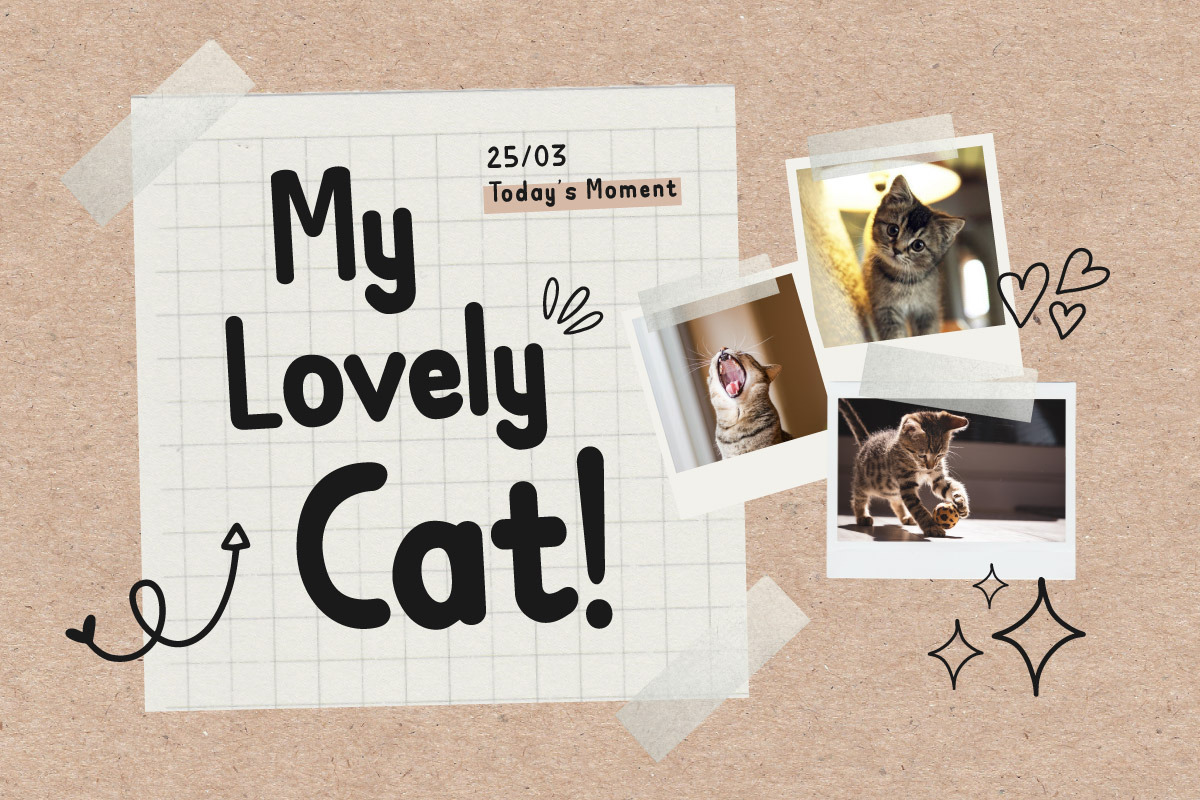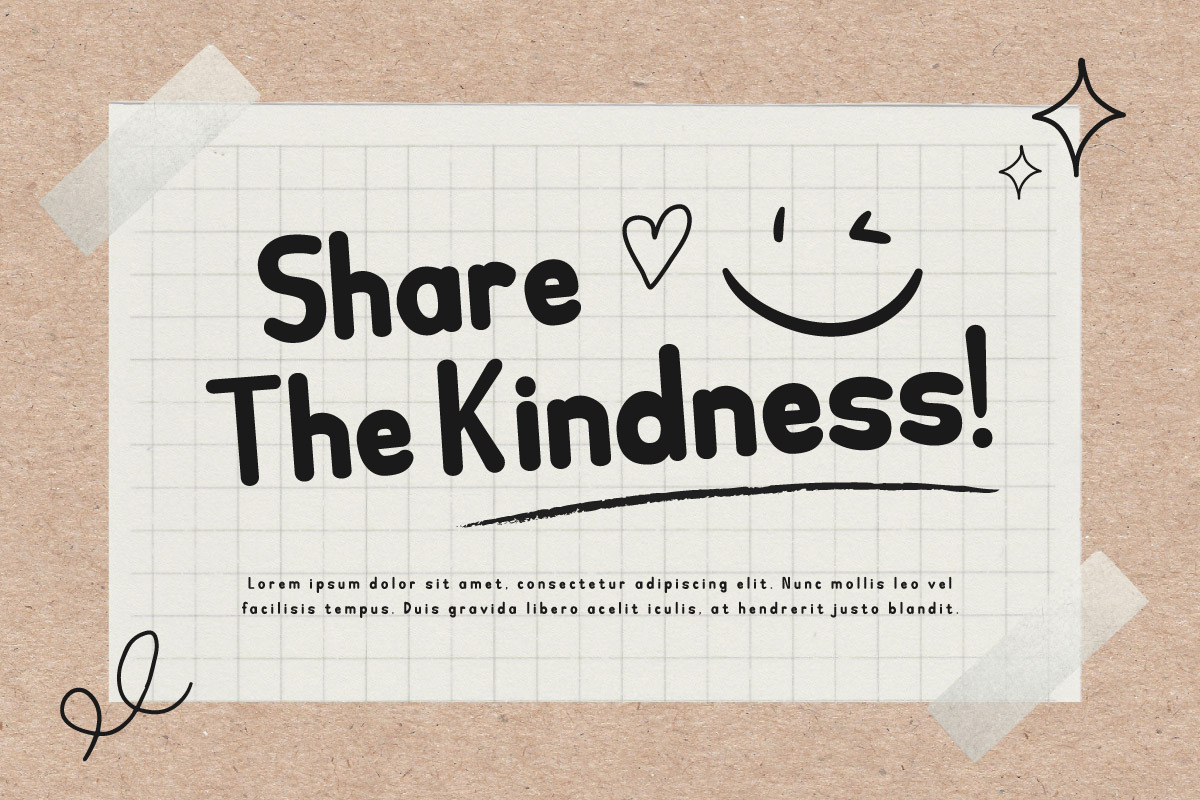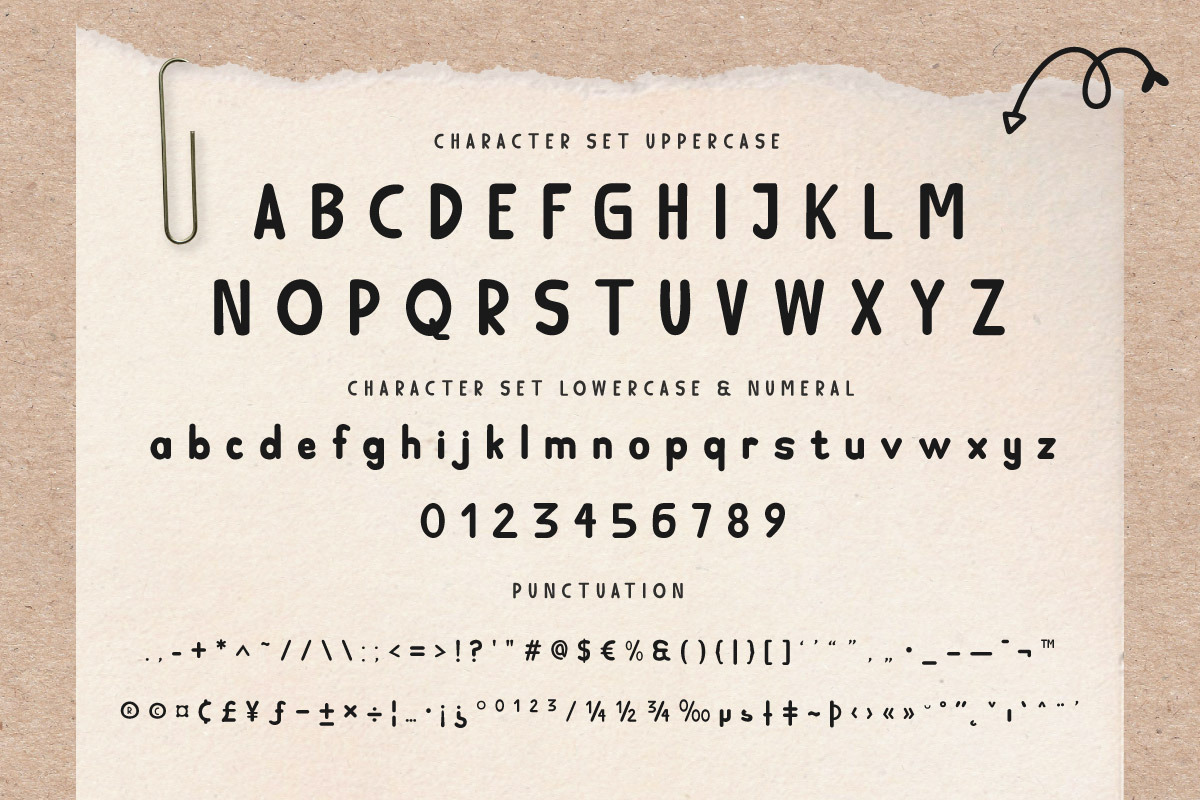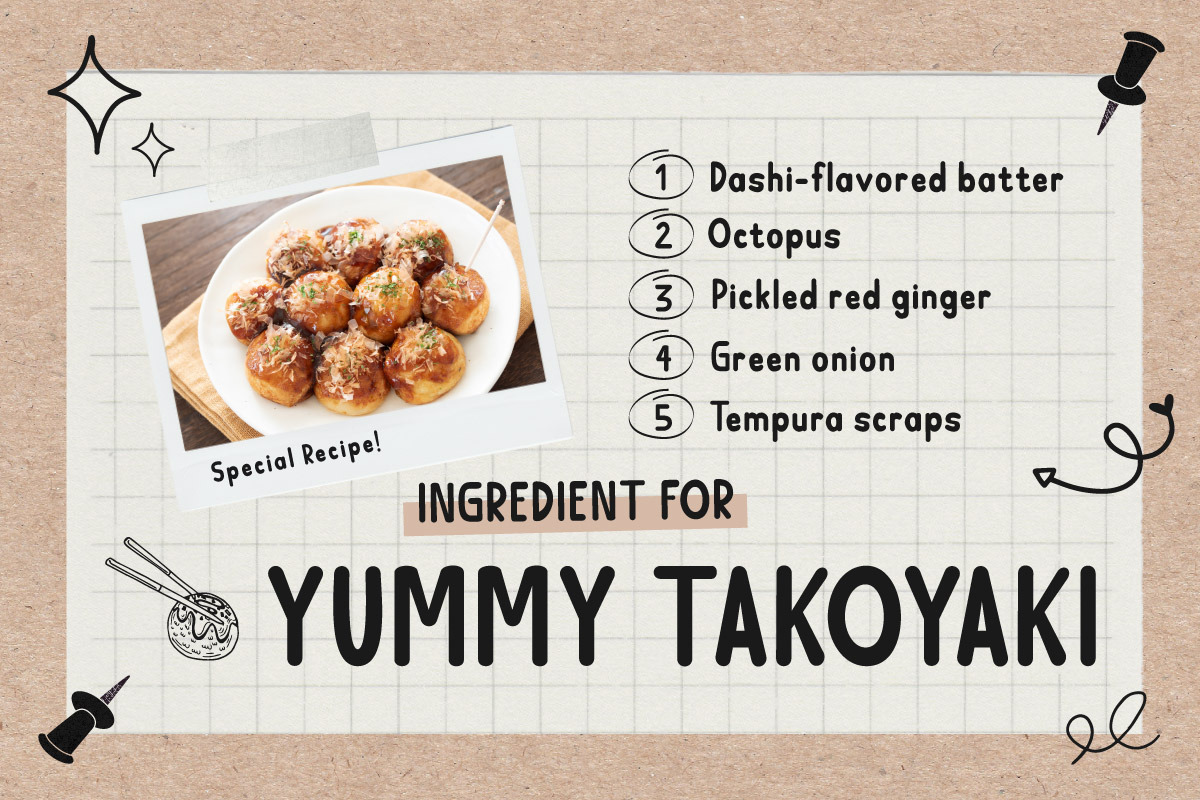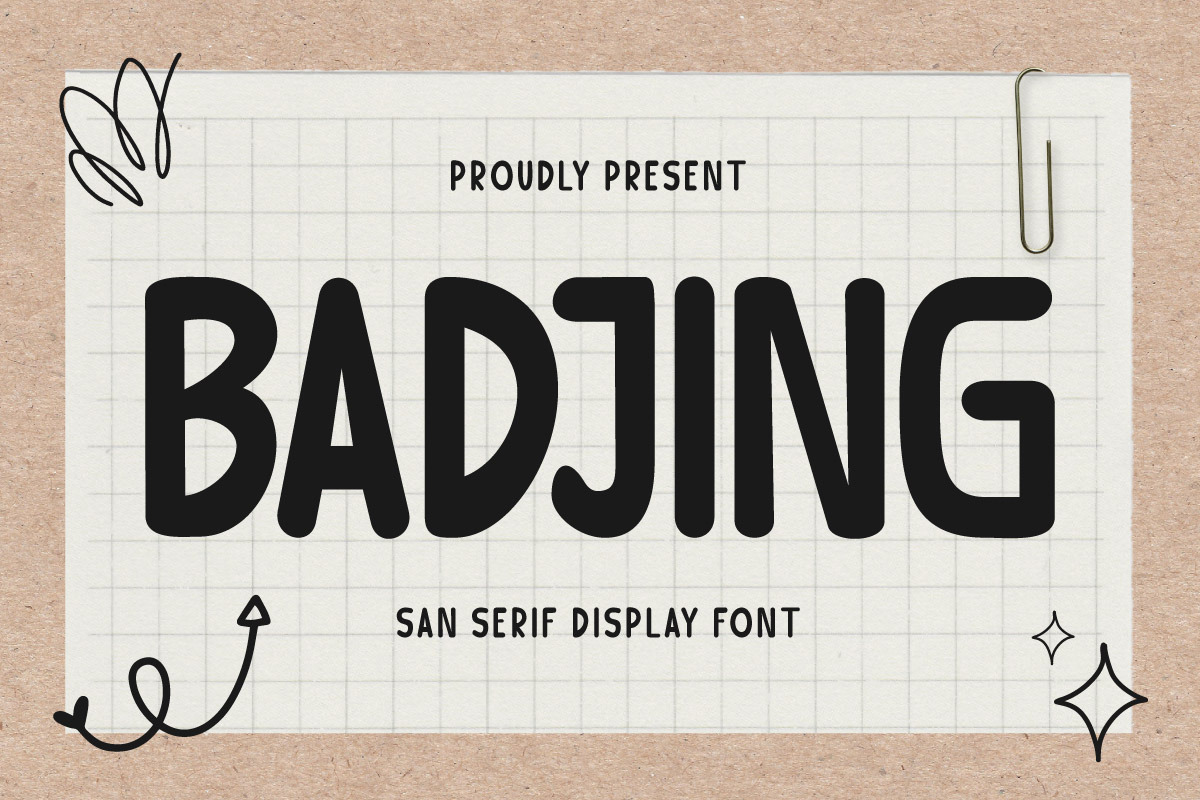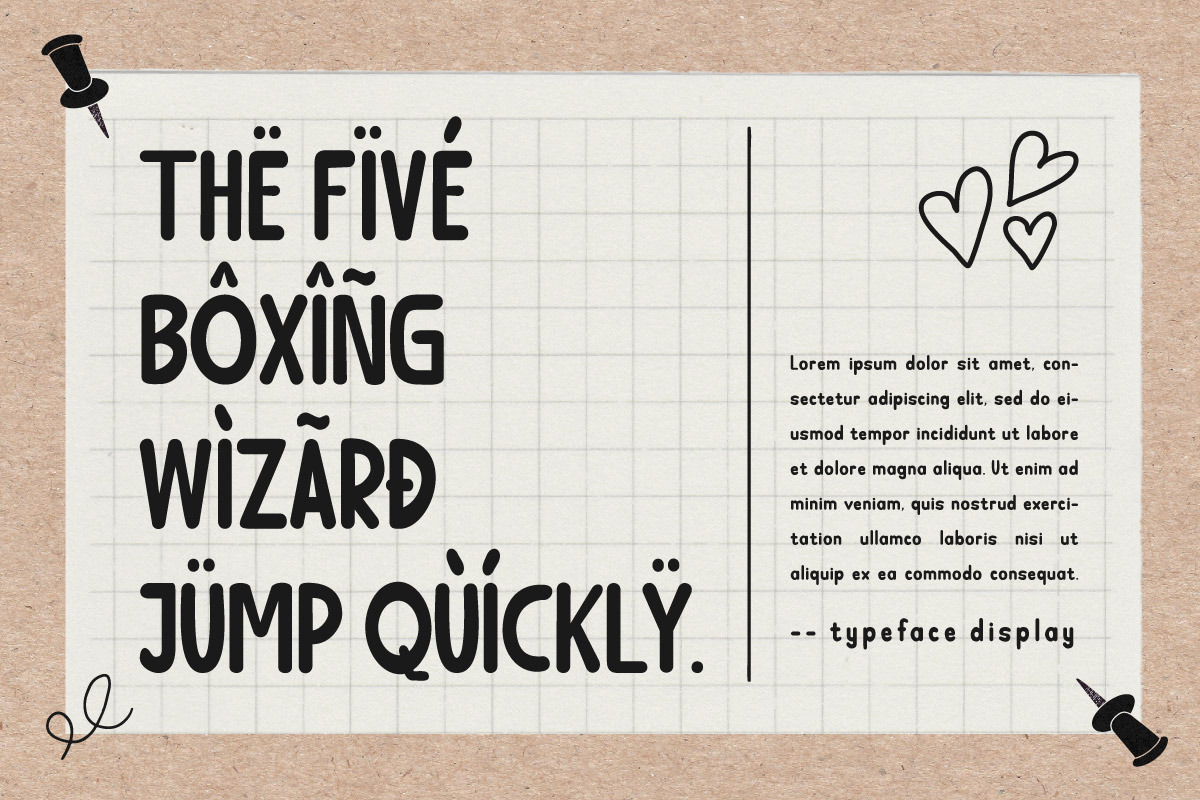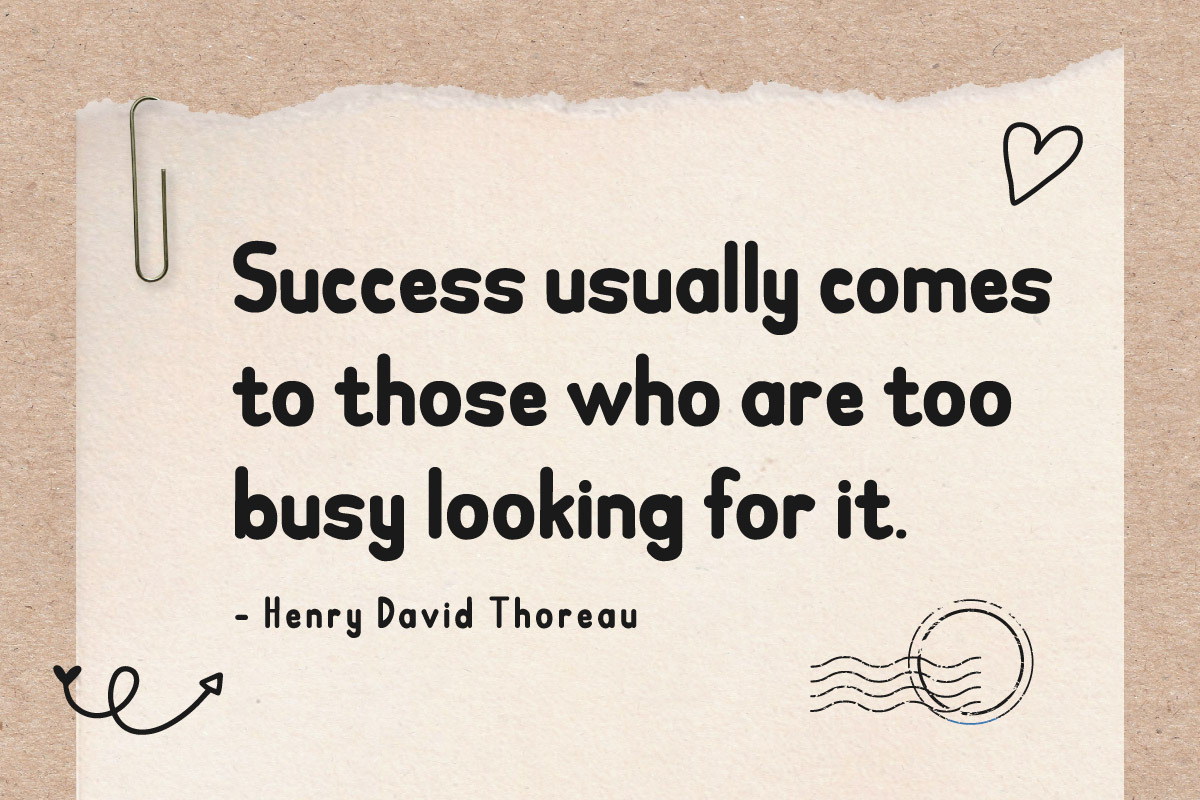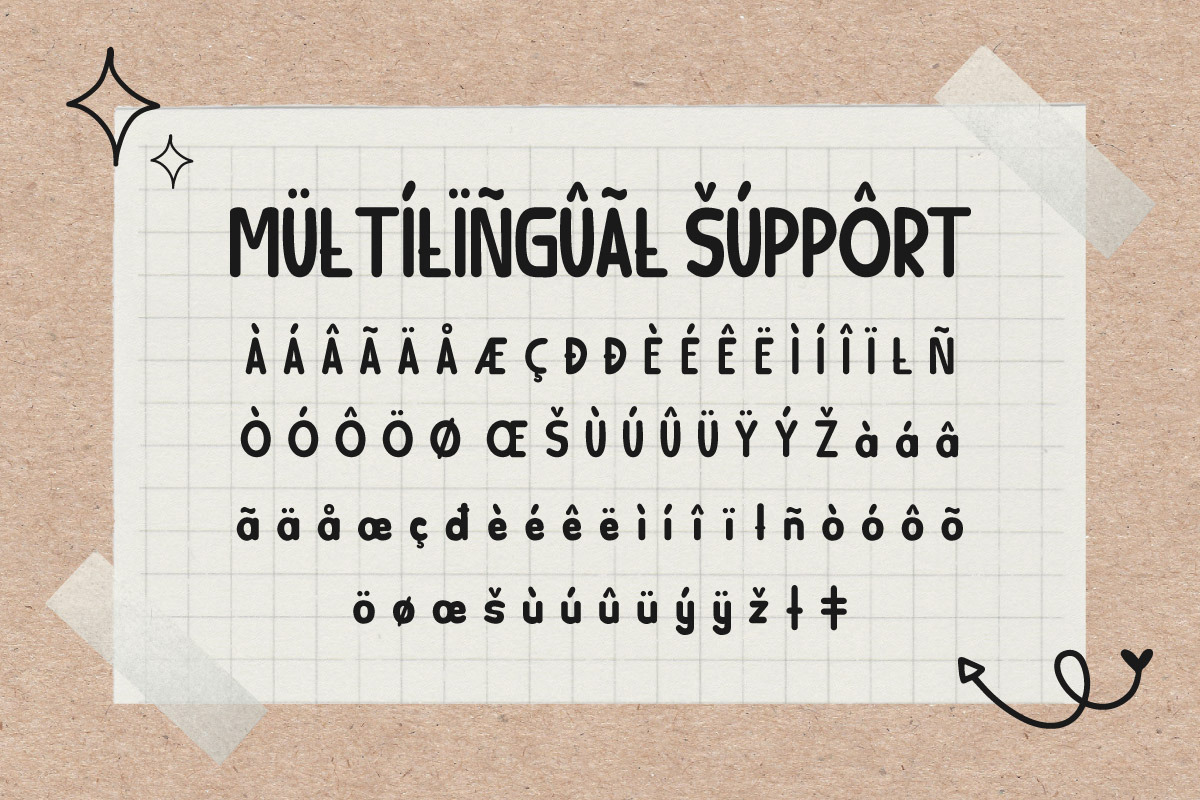
Badjing - Handwritten Font
Badjing is a handwritten font that brings a personal touch to your designs. Its natural, flowing characters mimic the beauty of human handwriting, making it ideal for invitations, greeting cards, and any design where you want to add a personal touch.